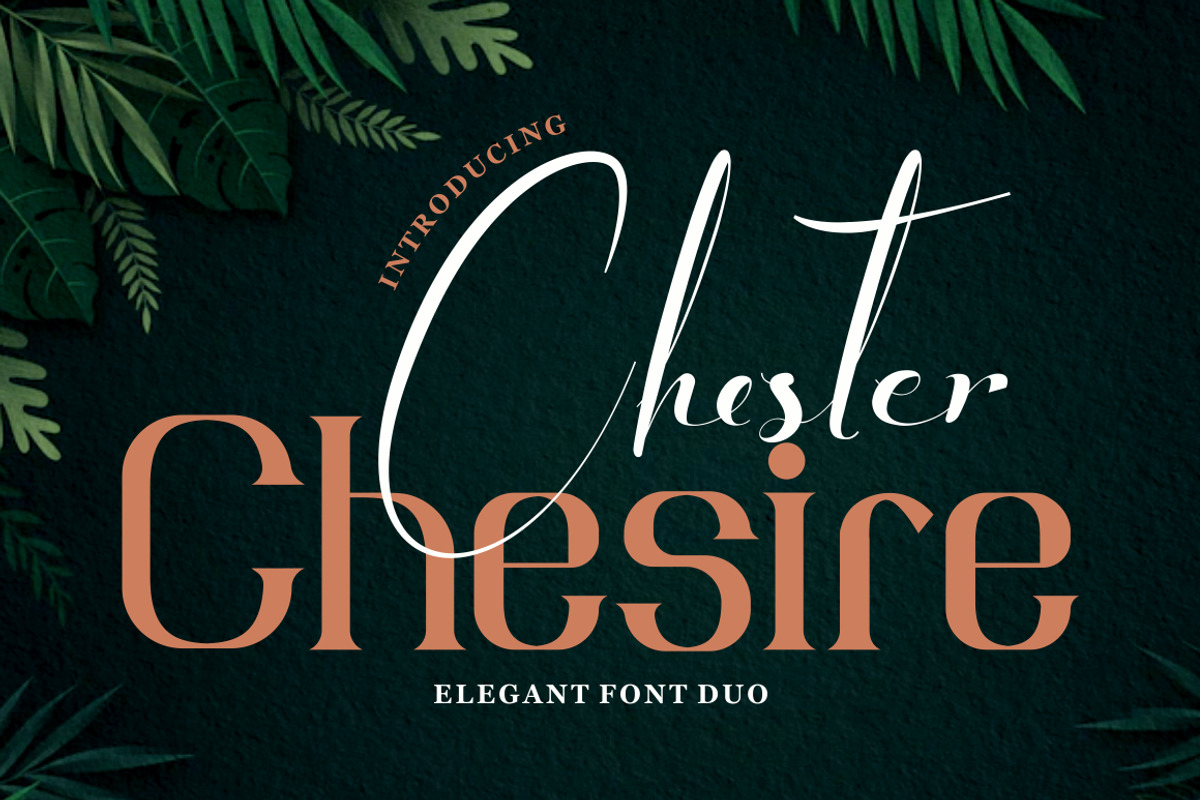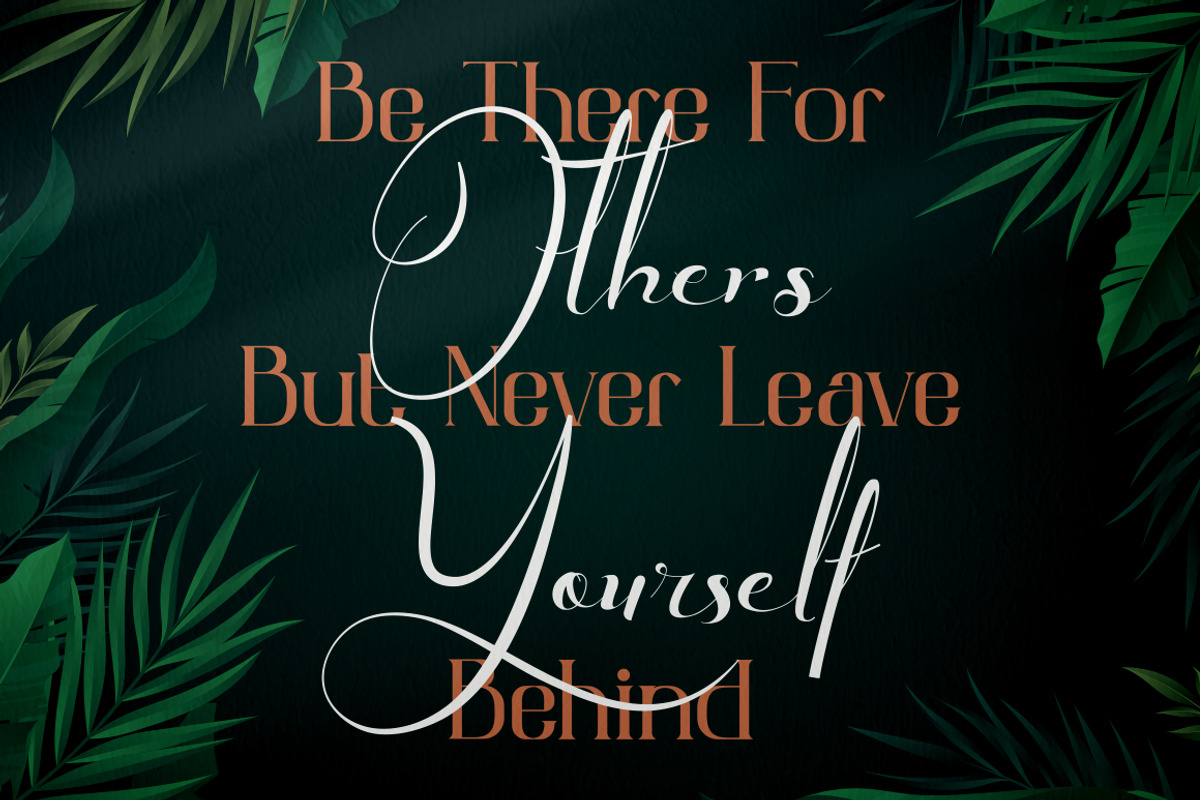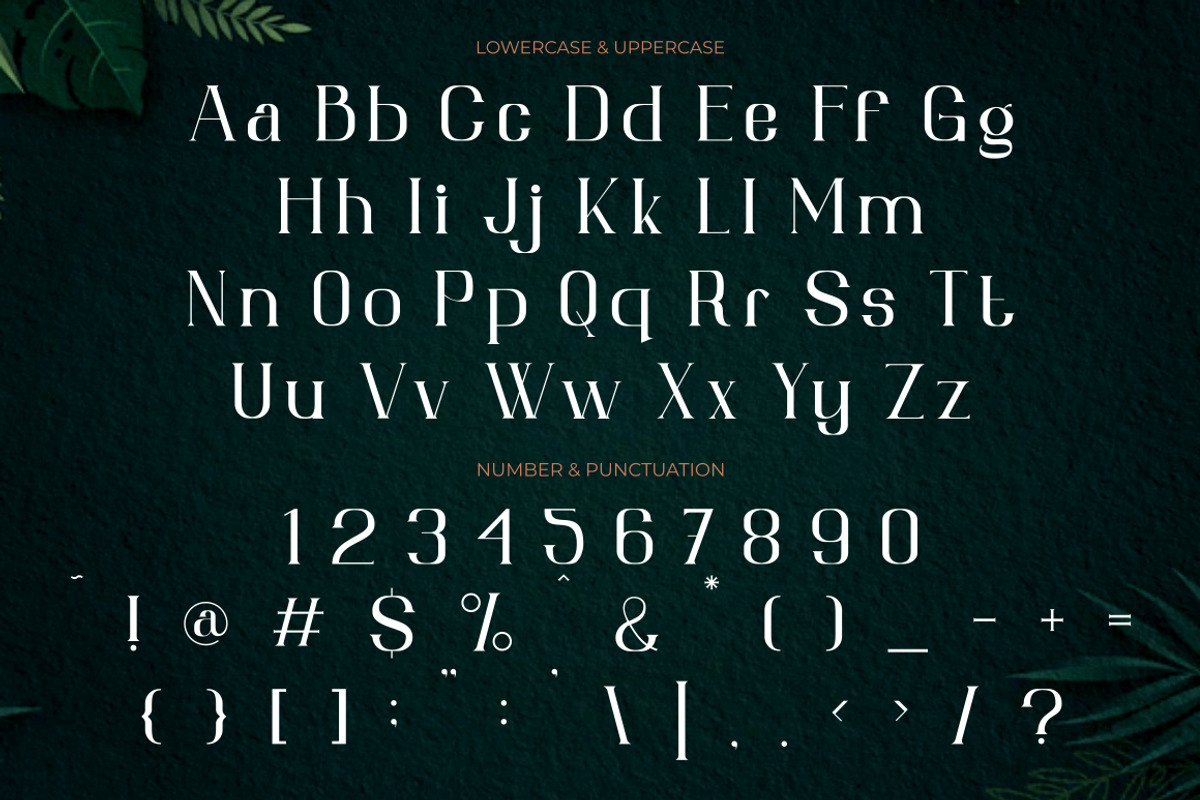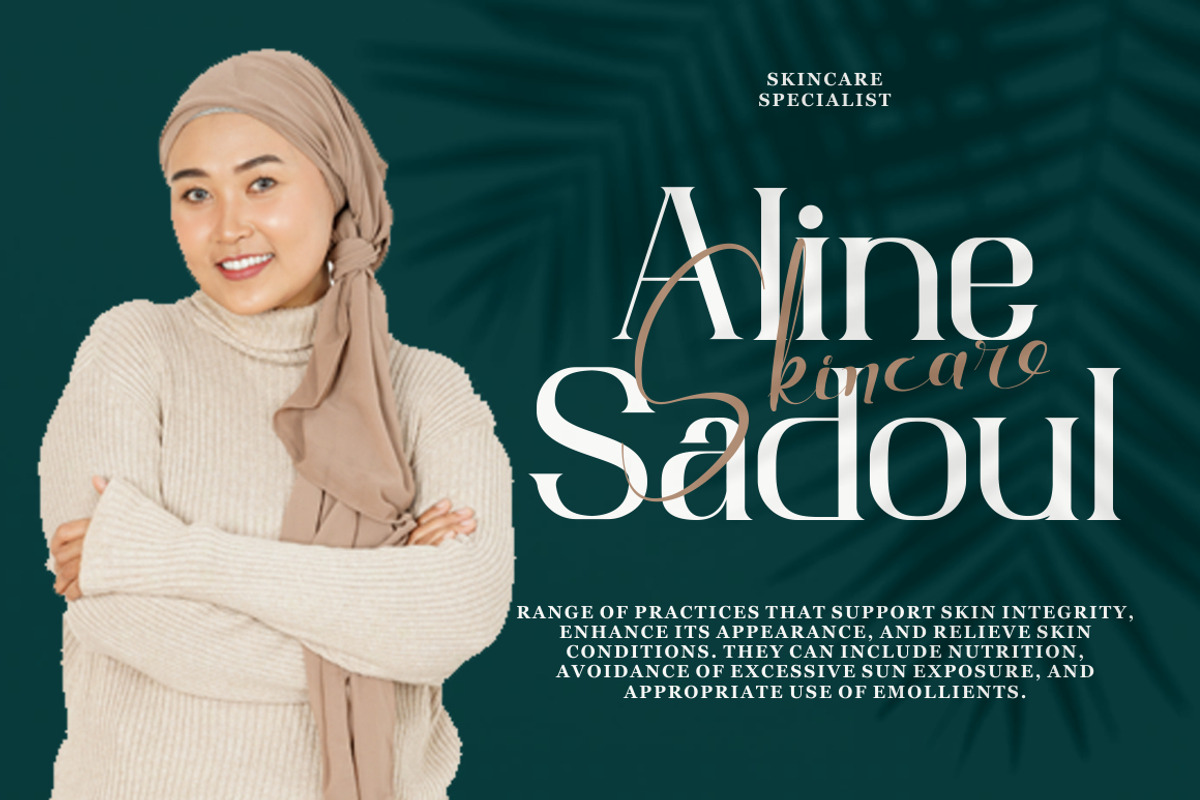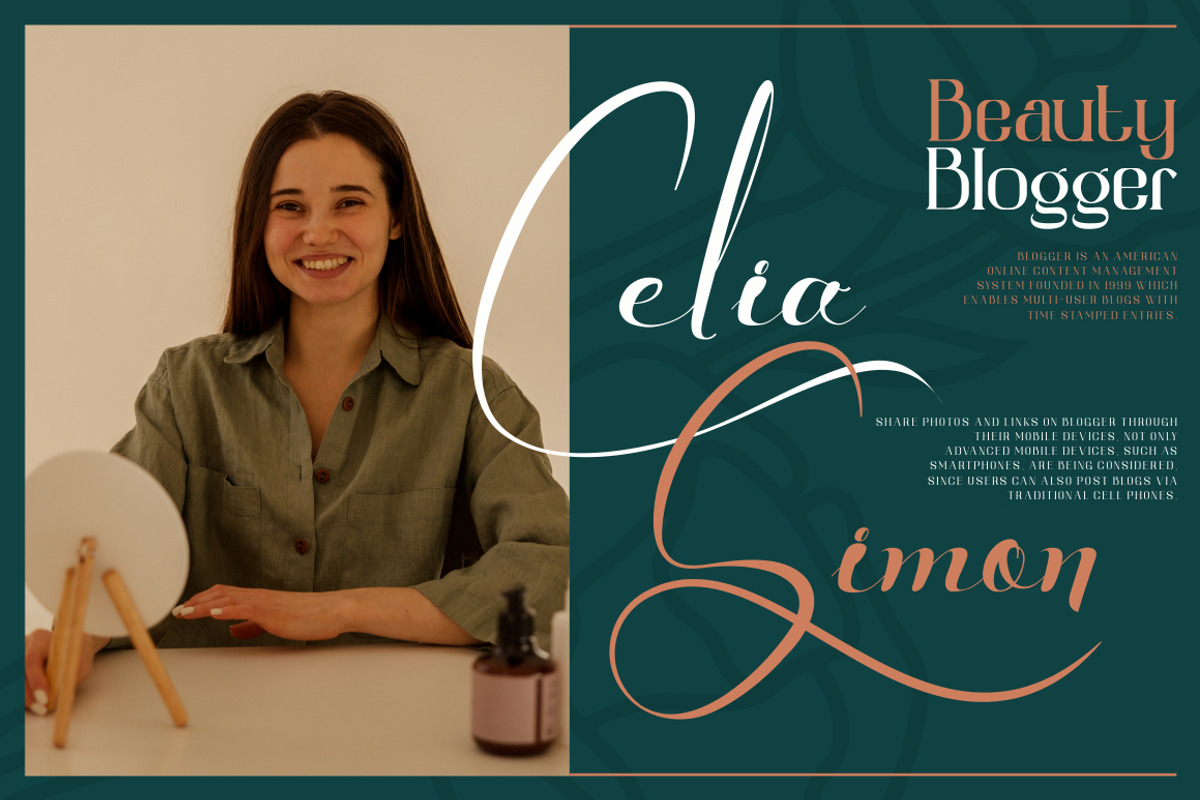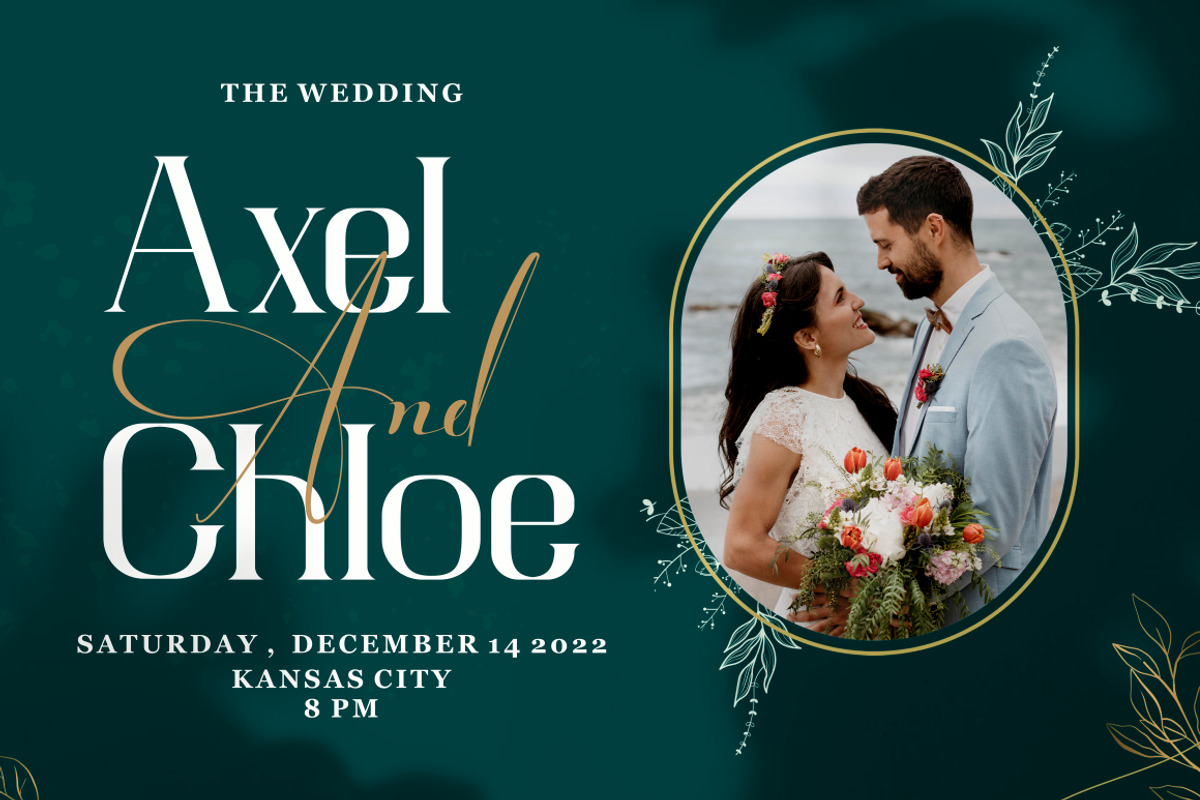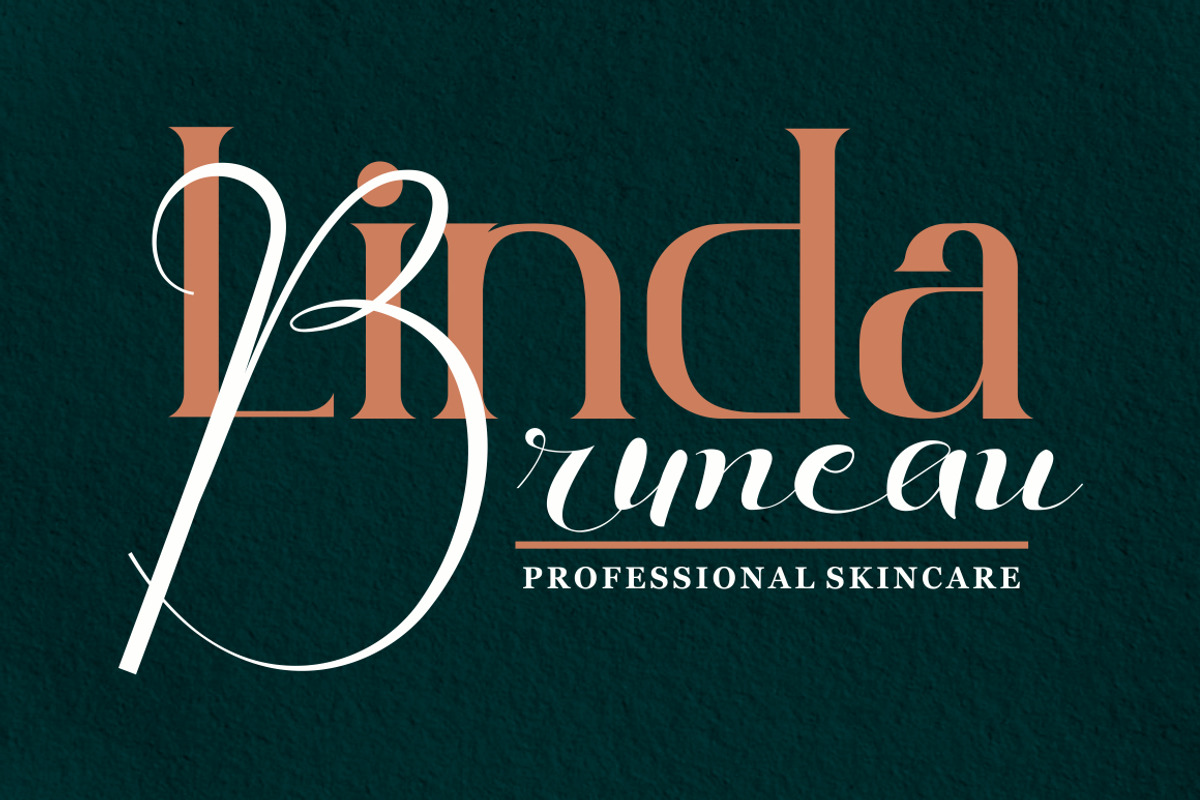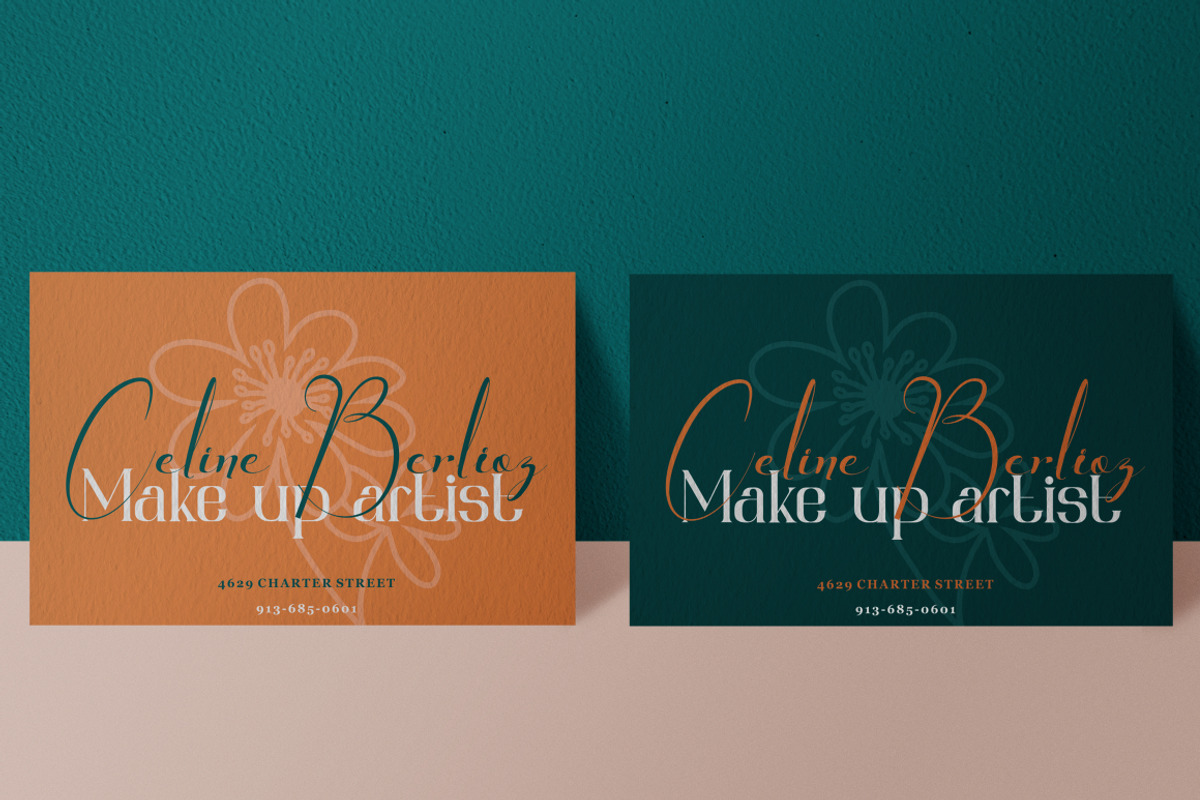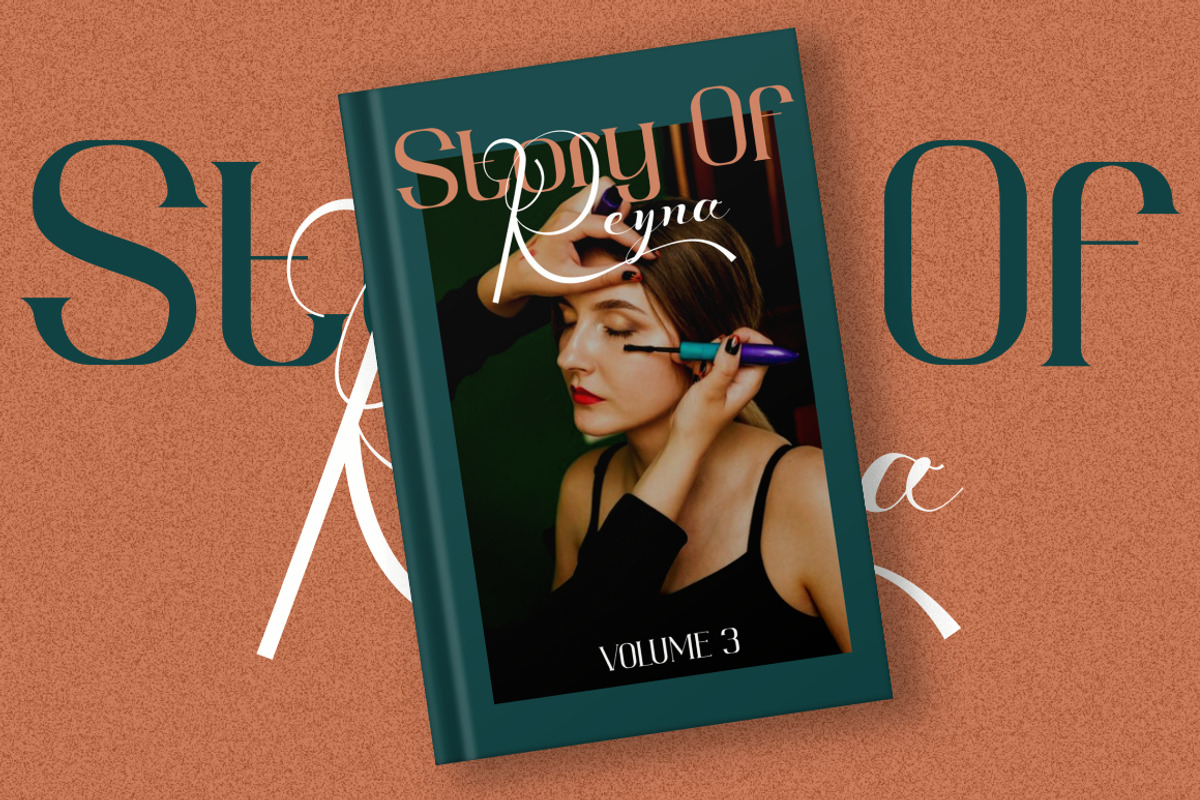
Chester Chesire - Elegant Font Duo
Chester Chesire - Elegant Font Duo is a digital product featuring a script and serif font duo designed with an elegant and luxurious style. Inspired by classic design with a modern touch, this font aims to provide a captivating and professional impression in various design contexts. It is particularly suitable for magazines, the fashion industry, headlines, printing materials, wedding invitations, and businesses seeking an aesthetic and beautiful font.
One of the key highlights of Chester Chesire is its diverse range of alternative characters, allowing for interesting design variations and personalized text looks. It offers excellent compatibility with different businesses and industries, making it a great choice for fashion companies, design studios, creative agencies, advertising firms, and more. The font package includes .otf, .ttf, and .woff formats, ensuring seamless installation across various design software and operating systems, including popular applications like Adobe Photoshop, Illustrator, InDesign, CorelDRAW, and others.
With Chester Chesire - Elegant Font Duo, you gain access to an elegant and luxurious font that enhances your design projects. Its rich alternative characters provide flexibility and creativity, while its compatibility with different software and operating systems ensures ease of use. Elevate your visual message and design impression with this captivating font, perfect for magazines, fashion, weddings, and businesses that prioritize a refined aesthetic. Add Chester Chesire to your font collection and enjoy the benefits of its professional appearance and high-quality design.